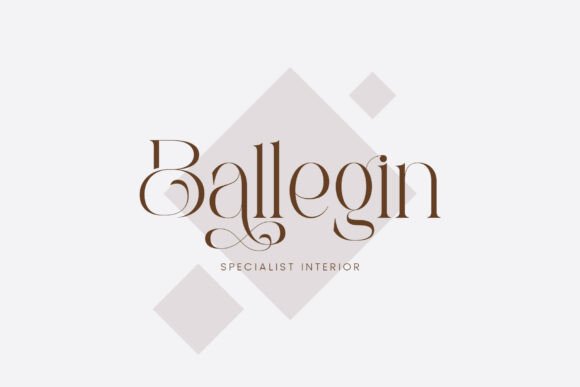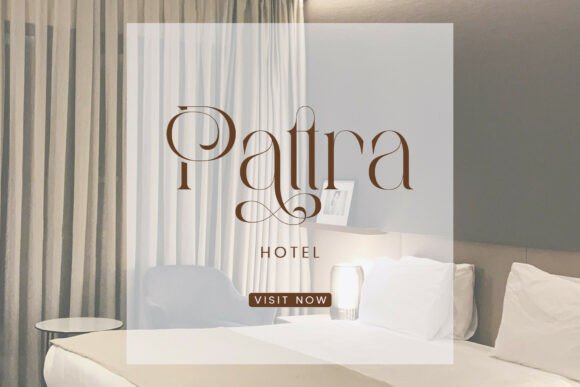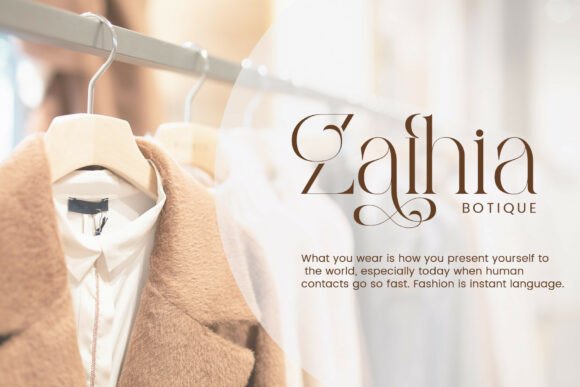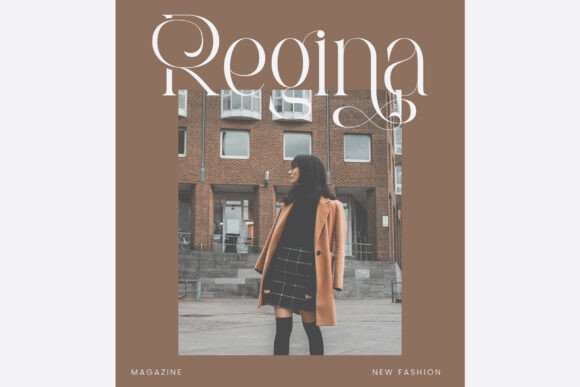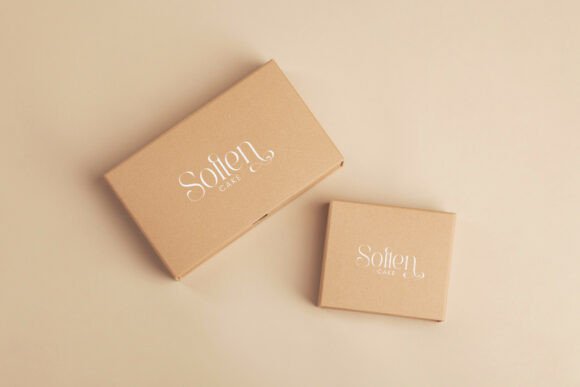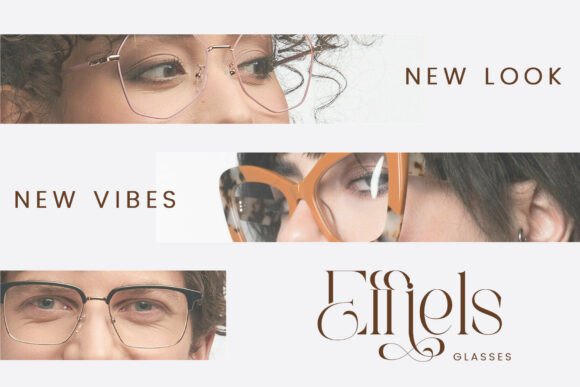
Achetta Font: The Ultimate Stylish Ligature Typeface for Designers
Are you a designer or crafter looking for a font that can elevate your creative projects to the next level? Look no further than the Achetta Font, a stylish ligature typeface inspired by the famous minimalist logo. This versatile font is perfect for designing templates, brochures, videos, advertising branding, logos, and more.
What Makes Achetta Font So Special?
The Achetta Font is a carefully crafted typeface that boasts a range of features that make it an ideal choice for designers. With its minimalist aesthetic and ligature style, this font is sure to add a touch of sophistication to any project. Here are just a few of the key features that make Achetta Font so special:
• Standard Glyphs: The font includes a full set of standard glyphs, ensuring that you have access to all the characters you need to create stunning designs.
• Ligatures: Achetta Font features beautiful ligatures that can help to add a touch of elegance to your designs.
• International Accent: The font includes support for international accents, making it perfect for designing projects that require non-English characters.
PUA Encoded Characters for Easy Access
Multilingual Support
The Achetta Font includes multilingual support, making it perfect for designers who work on projects that require multiple languages. Whether you’re designing a brochure for a international client or creating a website that caters to a global audience, Achetta Font has got you covered.